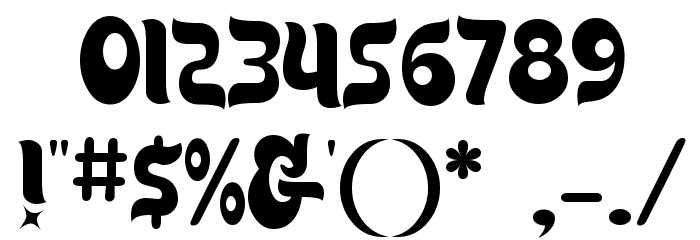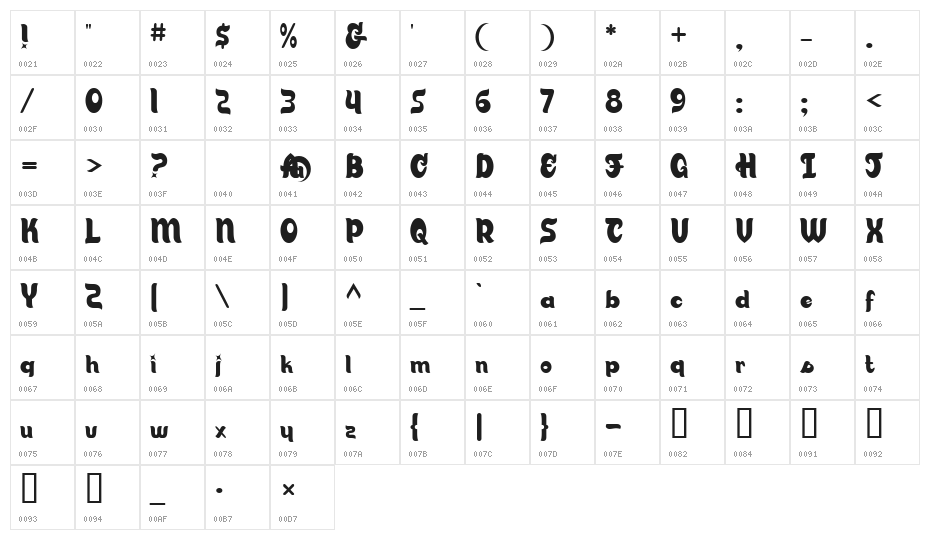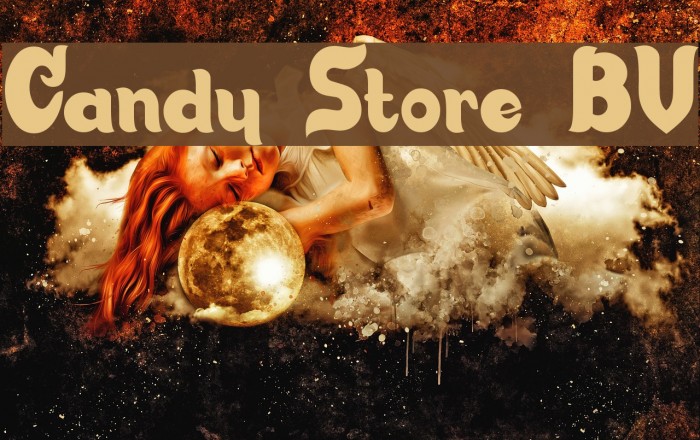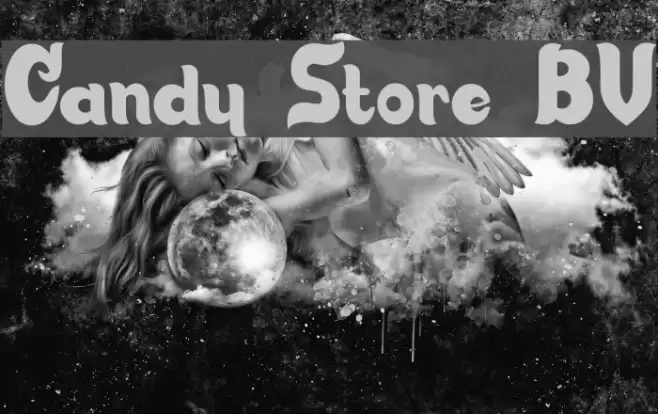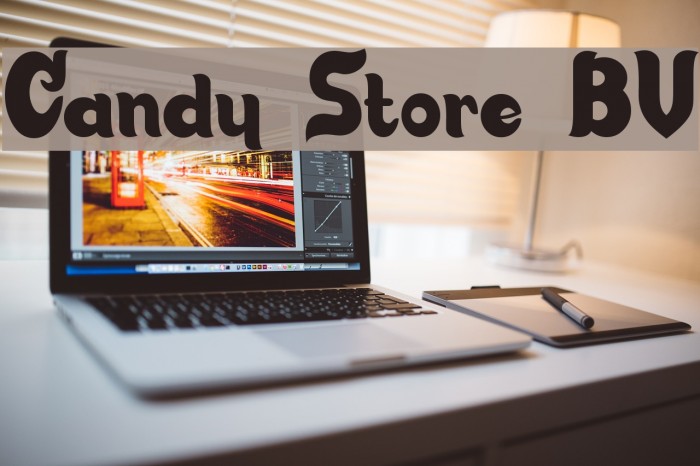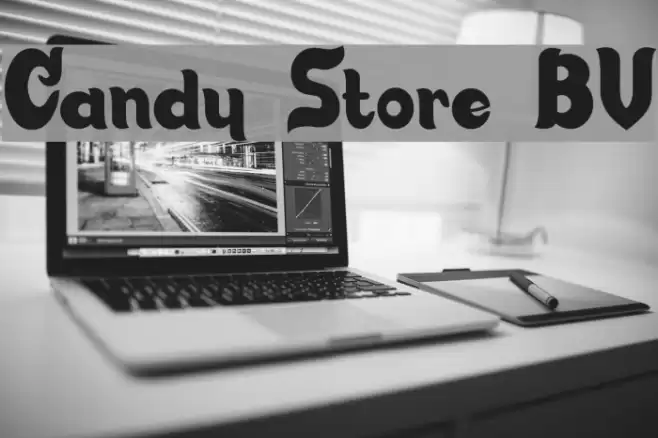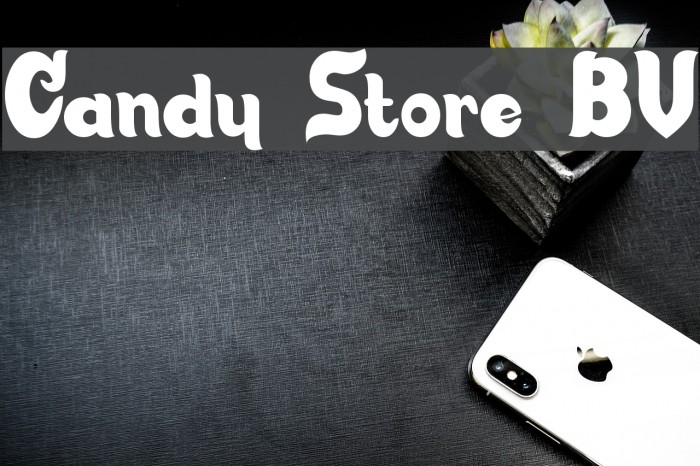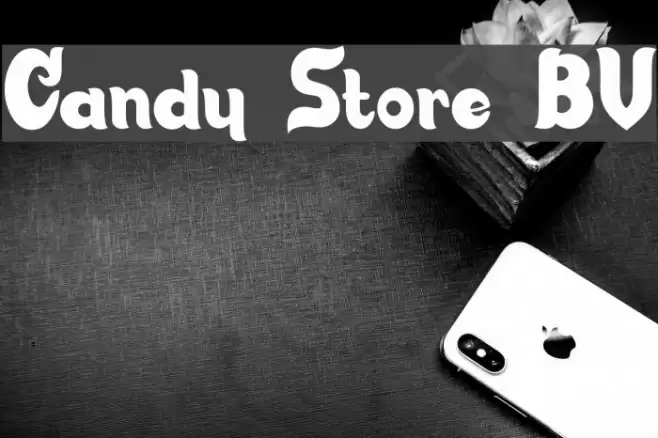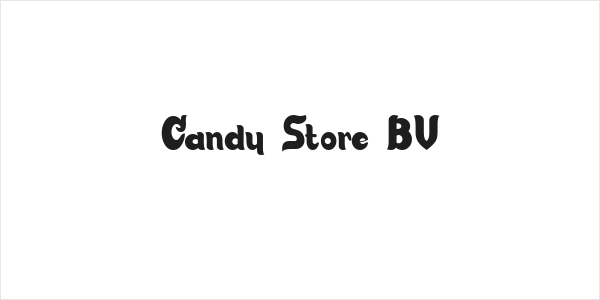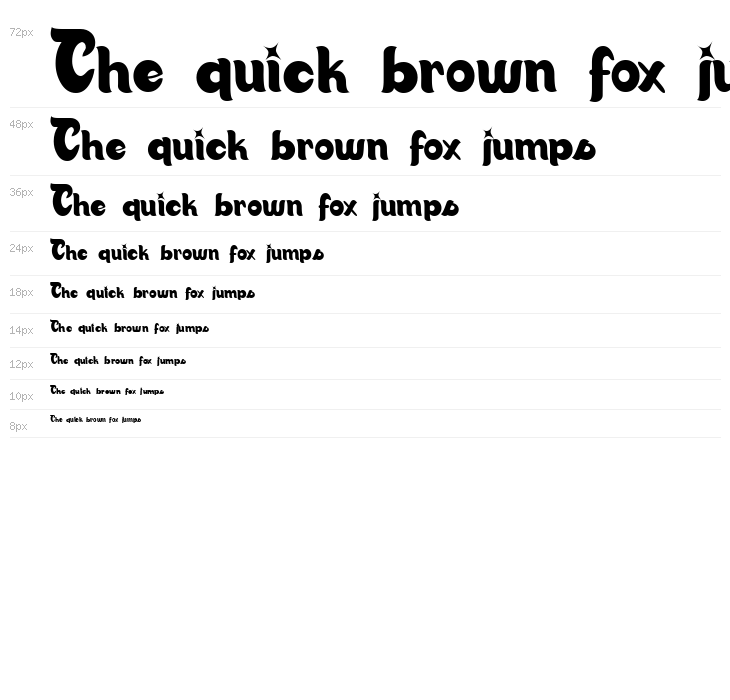
Candy Store BV Font
Candy Store BV Description
This playful and whimsical font features bold, rounded characters with a unique, almost retro flair. The letters are thick and have a consistent weight, giving them a strong presence on the page. The curves are smooth and exaggerated, adding a sense of fun and creativity. The font includes both uppercase and lowercase letters, numbers, and a variety of special characters, making it versatile for different uses. The overall style is reminiscent of vintage signage or candy store branding, with a touch of modernity. The spacing between characters is normal, ensuring readability while maintaining its decorative appeal.
| Overall Style | Vintage, Playful |
| Proposed Projects | Ideal for branding projects, playful packaging designs, children's books, and retro-themed posters. |